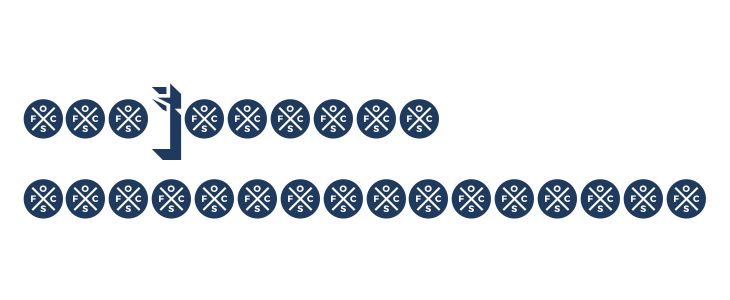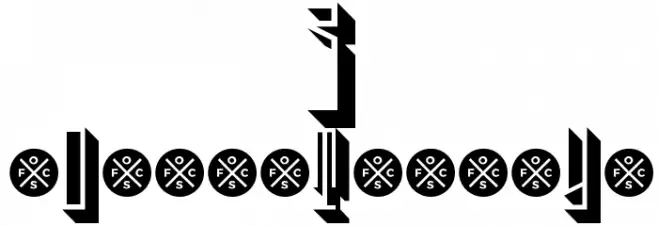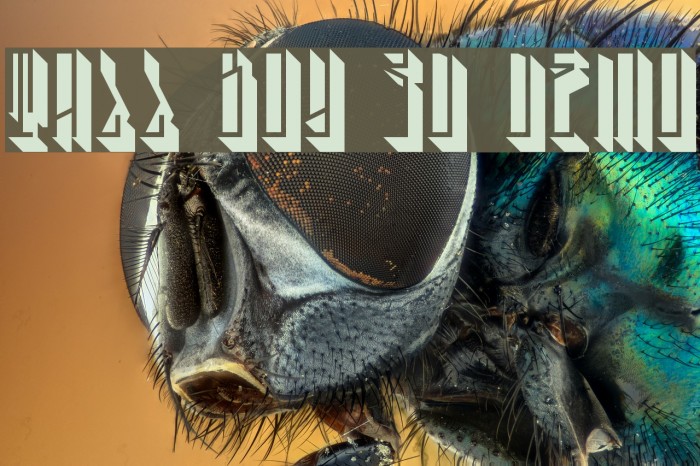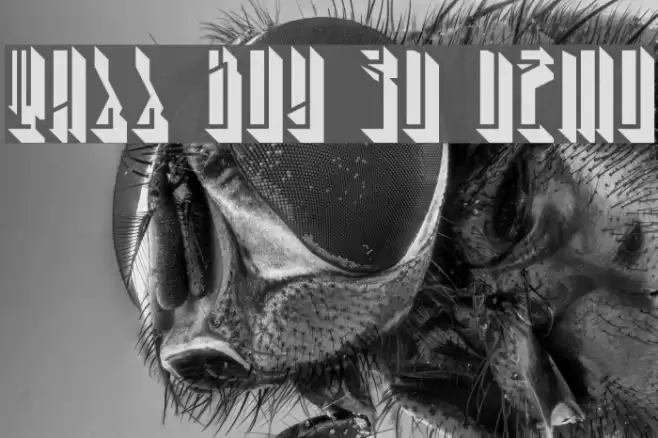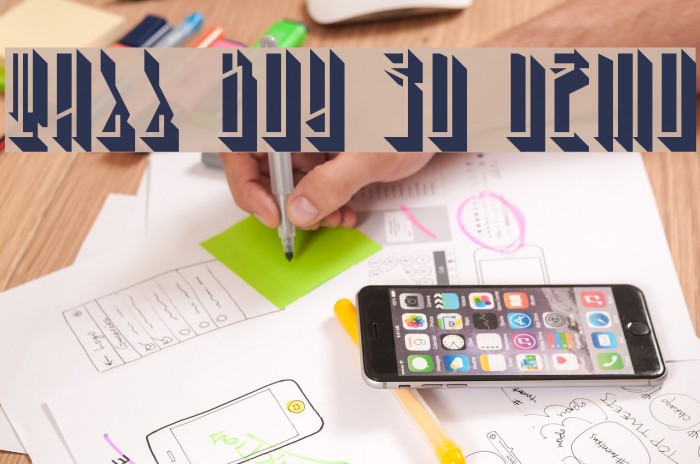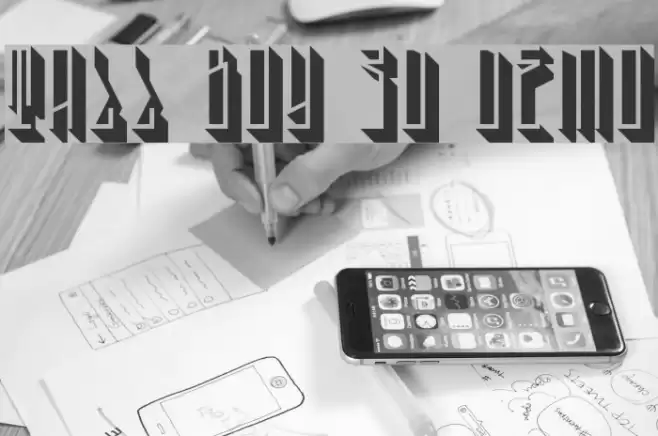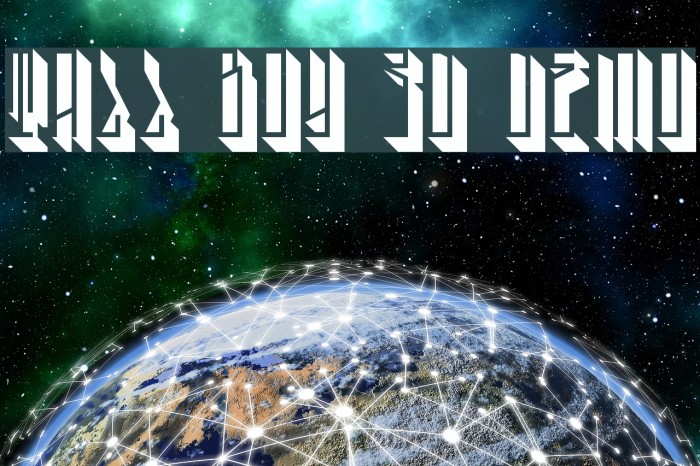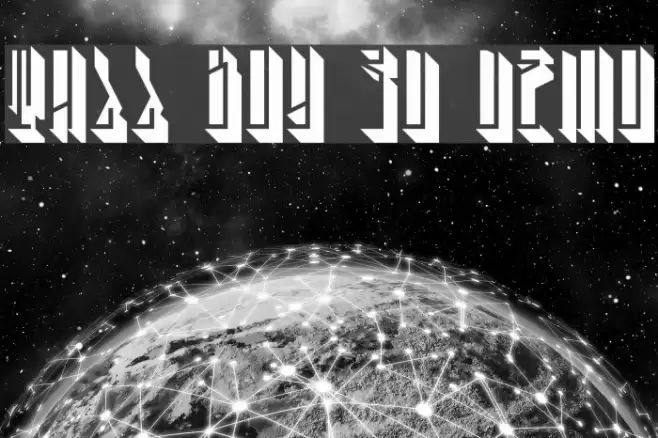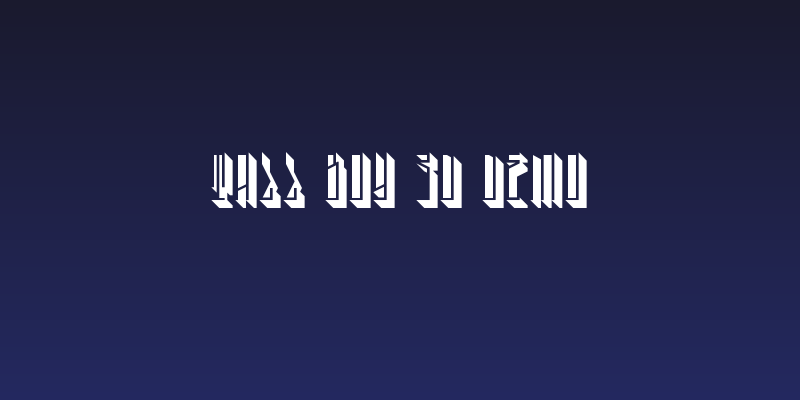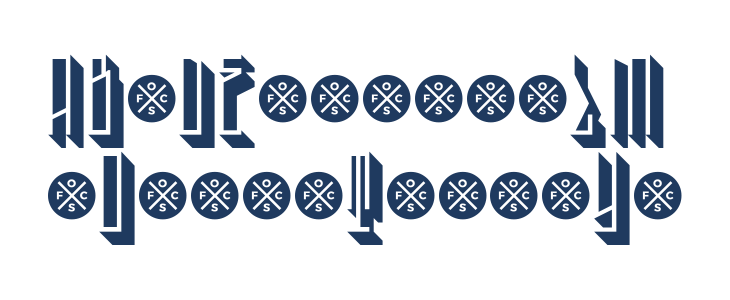
Tall Boy 3D Demo Font
Tall Boy 3D Demo Description
This font features a bold, three-dimensional design with a strong, geometric structure. The characters are tall and narrow, with sharp angles and a blocky appearance that creates a striking visual impact. The 3D effect is achieved through the use of shadows and highlights, giving the letters a sense of depth and dimension. The uppercase and lowercase letters maintain a consistent style, with the numbers and special characters following the same design principles. This font is ideal for creating attention-grabbing headlines or logos that require a modern and edgy look.
| Proposed Projects | Ideal for use in branding, poster design, album covers, and any project requiring a bold, modern aesthetic. |